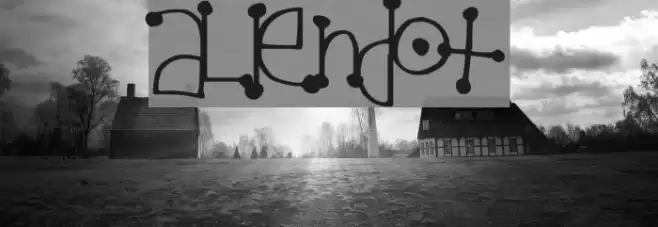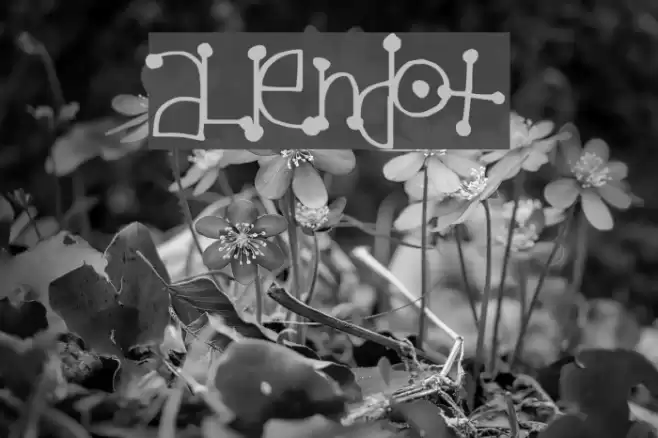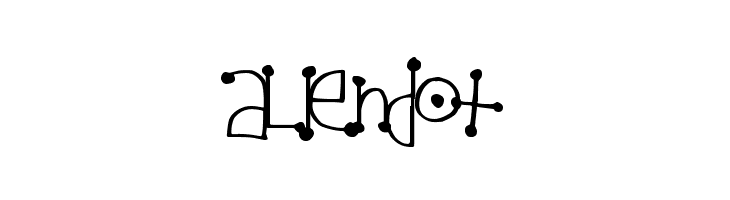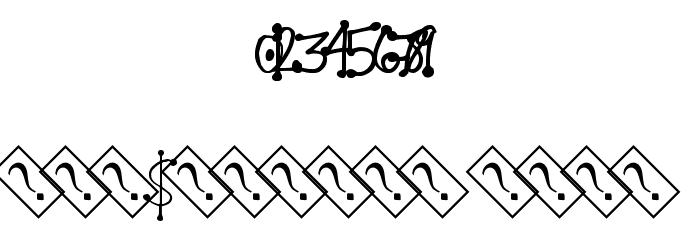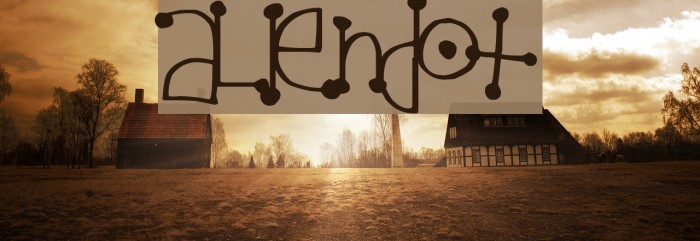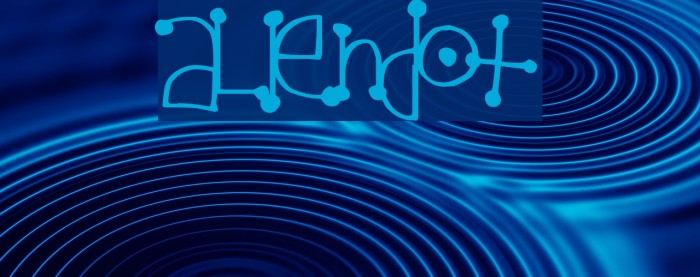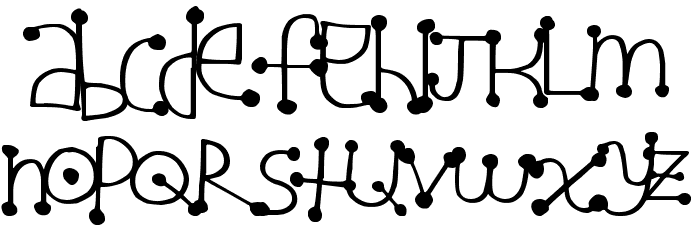
AlienDot Font
AlienDot Description
This font features a unique and playful design with a futuristic and alien-like aesthetic. Each character is composed of bold, rounded strokes connected by dots, creating a sense of movement and connectivity. The uppercase and lowercase letters maintain a consistent style, with the dots adding a whimsical touch. Numbers and special characters follow the same design principles, ensuring uniformity across the font. The overall appearance is both decorative and modern, making it suitable for creative projects that require a distinctive and eye-catching typeface.
A playful, futuristic font with bold strokes and dot connections from Uncategorized fonts.
- Proposed Projects: Ideal for sci-fi themed designs, children's books, video game graphics, and creative branding.
- Overall Style: Futuristic, Playful
- Use Case: Logos, Posters, Titles